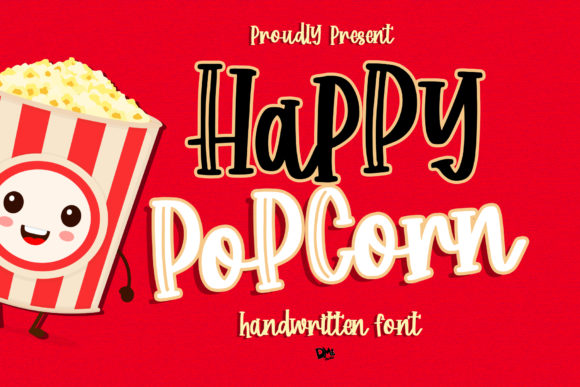
Step into the world of Happy Popcorn, a script font that dances with individuality and charm! Its whimsical strokes and elegant curves add a touch of magic to any design, making it the perfect choice for those seeking a font that captivates and inspires.
With Happy Popcorn, you can transform your creative visions into captivating realities. Whether it's invitations, logos, branding, or social media posts, this font adds a unique and personal touch that sets your designs apart. Its playful yet sophisticated nature makes it suitable for various projects, from whimsical illustrations to elegant wedding invitations.
Immerse yourself in the world of Happy Popcorn and unlock a realm of creative possibilities. Let your imagination soar as you craft designs that exude personality and charm. From heartfelt letters to eye-catching marketing materials, Happy Popcorn is your perfect companion, adding a touch of whimsy and elegance to every project.